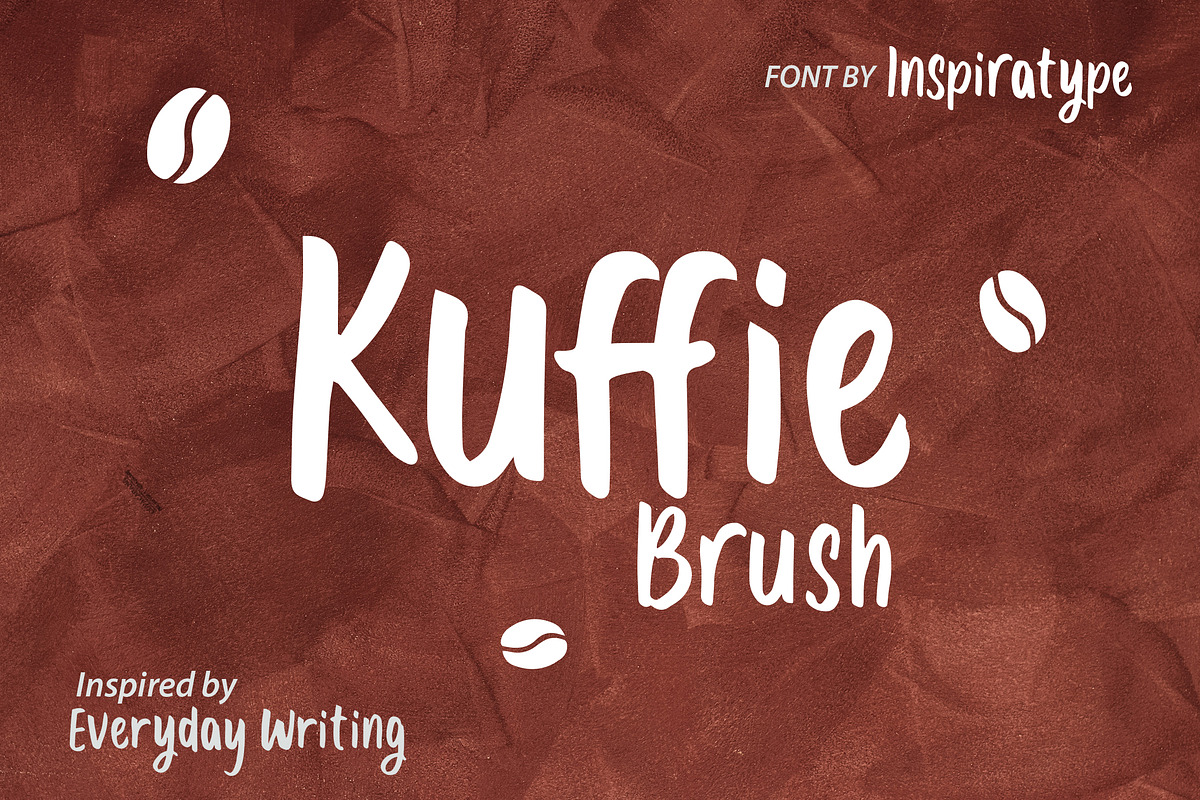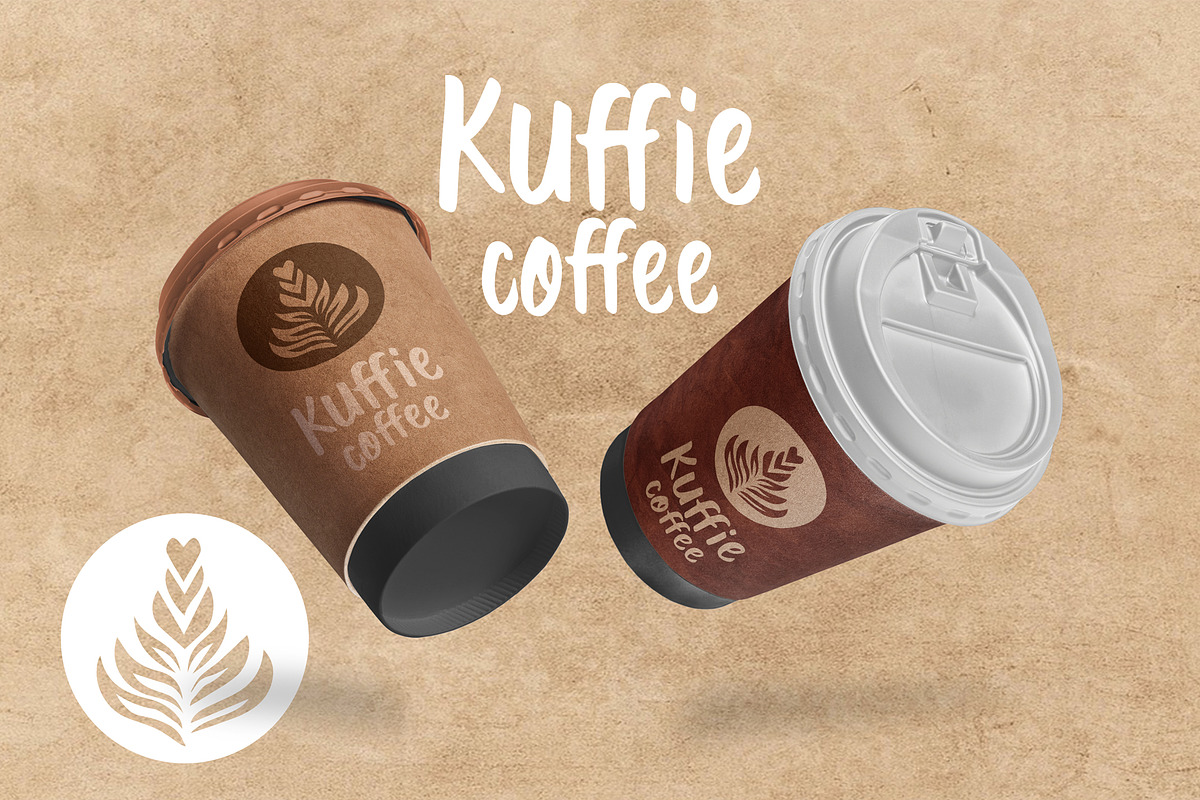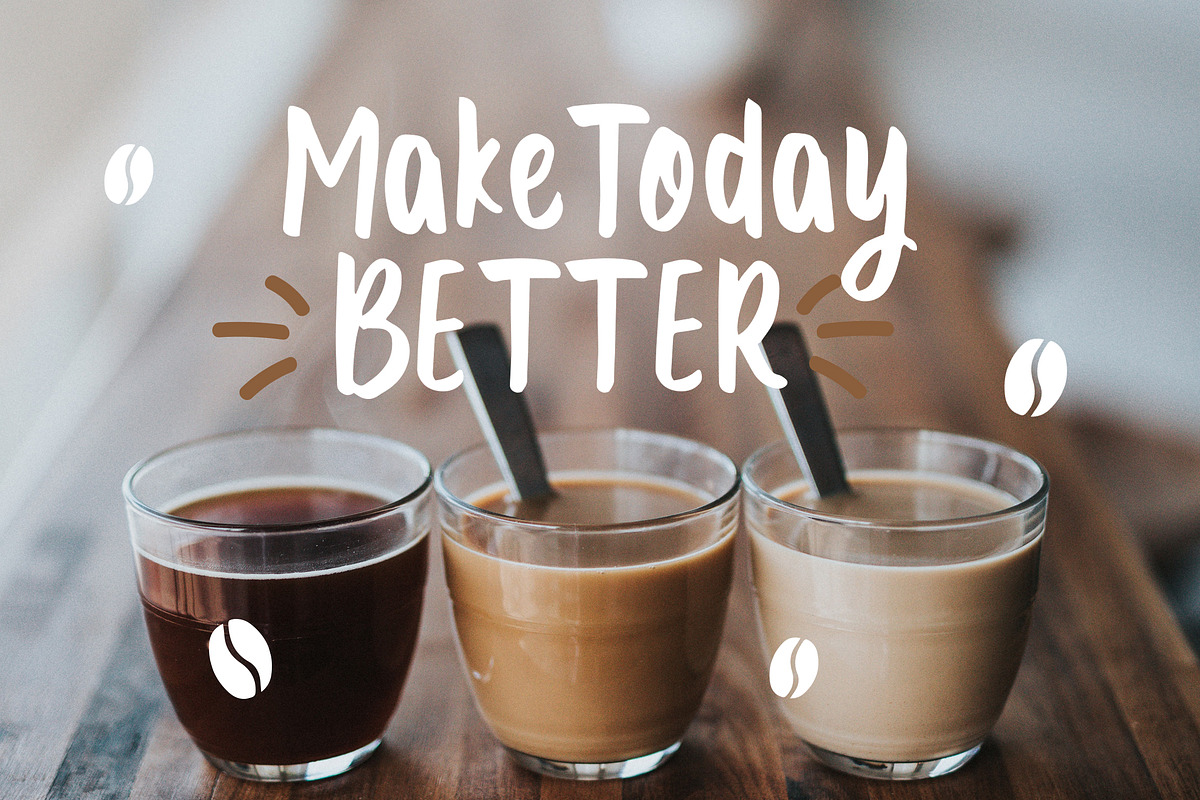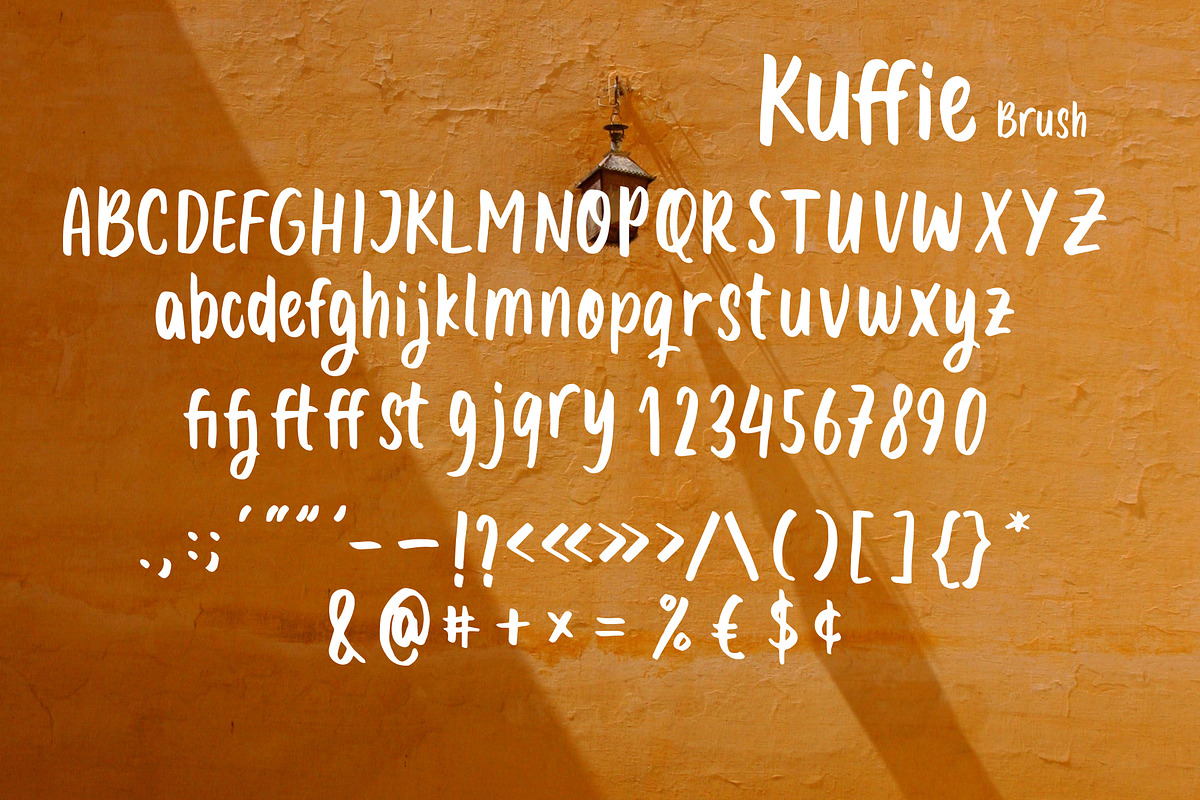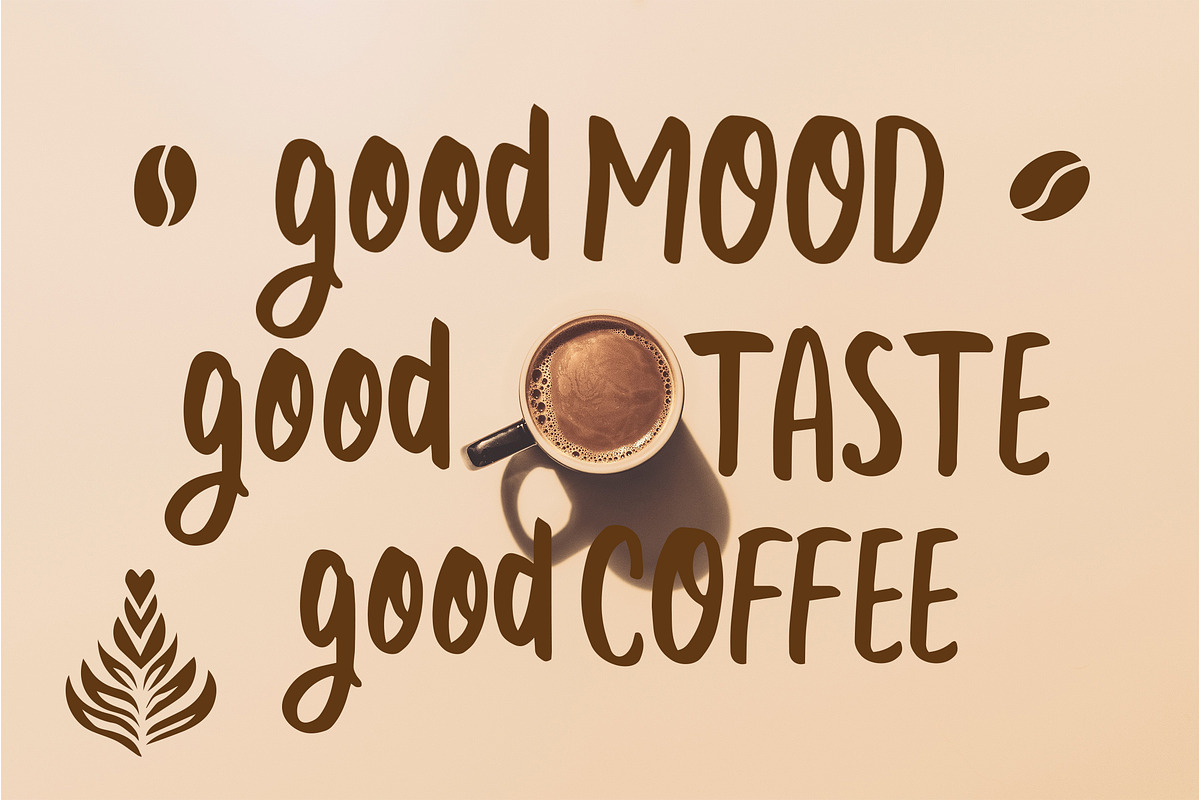
Kuffie - Brush Font
"Kuffie" is a font display that is made by hand, inspired by classic posters.
comes with uppercase, lowercase, numerals, punctuations and so many variations on each character include OpenType alternates, common ligatures and also additional swash to let you customize your designs. Perfect to use for Logotype, Letterhead, Poster, Apparel Design, Label and etc.